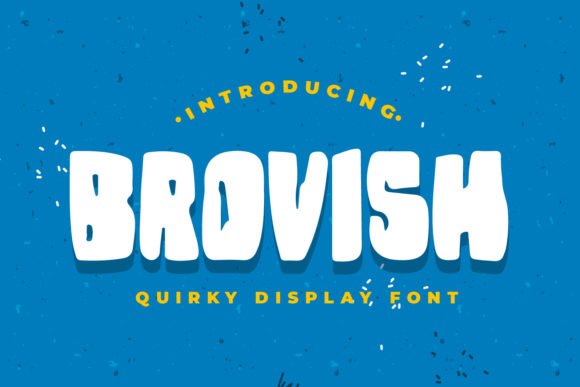
The Perfect Match for Your Next Creative Project
Do you remember the excitement of creating your first craft project as a child? The feeling of bringing an idea to life with colorful markers, glitter, and imagination? For many of us, that spark never fades, and we continue to seek out ways to express our creativity as adults. Whether you’re a seasoned designer or a DIY enthusiast, the right tools can make all the difference in bringing your vision to life.
Enter the Brovish Font, a delightful display font that’s perfect for adding a playful touch to any project. With its thick, cute letters, Brovish Font embodies the spirit of childhood creativity and authenticity. Whether you’re designing a children’s activity, a school project, or simply a fun graphic, Brovish Font is the perfect choice. Its value lies not only in its aesthetic appeal but also in its versatility, making it a valuable addition to any designer’s toolkit.
Key Features of Brovish Font
- Font Family: Brovish is a sans-serif font family designed for digital use, with multiple weights and styles available.
- Character Set: Supports a wide range of languages, including Latin, Cyrillic, and Greek alphabets, making it suitable for global applications.
- Unique Characteristics: Brovish features a distinctive rounded edge design, making it suitable for modern and minimalist designs.
Designer Review: Brovish Font
I recently had the chance to work with the Brovish Font, and I must say it was an interesting experience. ✨ One of the things that stood out to me was the font’s unique aesthetic. It has a quirky, playful feel that would be perfect for designs that need a bit of whimsy.
Here are some of the things that I think work well with Brovish Font:
- ✨ Unique character set: The font has a wide range of glyphs and characters that add to its playful feel.
- ✨ Versatility: Brovish Font can be used in a variety of design contexts, from logos to body text.
- ✨ High-quality rendering: The font renders well at both small and large sizes.
- ⚠️ Limited language support: Brovish Font may not be suitable for designs that require support for languages with complex scripts.
- ⚠️ May not be suitable for formal designs: While Brovish Font can be used in a variety of contexts, it may not be the best choice for formal or professional designs.
Overall, I think the Brovish Font is a fun and creative option for designers who want to add a bit of personality to their work. While it may have some limitations, I think it’s a great choice for the right project.
Tips for Getting the Most Out of Brovish Font
For the best results, use Brovish Font in conjunction with bold or italic styles to create visual interest.
Experiment with different font sizes and colors to create a unique and eye-catching design.
Brovish Font is ideal for use in:
- Typography-based designs, such as posters and flyers.
- Wedding invitations and other special occasion designs.
Alternatives to Brovish Font
Brovish Font is a sans-serif font known for its clean lines, geometric shapes, and modern feel. Here are some alternatives for designers to consider.
Montserrat Font is a sans-serif font designed by Julieta Ulanovsky. It’s a geometric font with a strong urban feel, making it perfect for modern designs, cityscapes, and urban-themed projects. Montserrat Font is more geometric than Brovish Font, with a stronger emphasis on angles and sharp lines.
2. Inter Font
Inter Font is a modern sans-serif font designed by Rasmus Andersson. It’s a highly legible font with a clean and minimalist design, making it suitable for a wide range of projects, from corporate identities to digital products. Inter Font is more neutral than Brovish Font, with a focus on simplicity and readability.
Lato Font is a sans-serif font designed by Łukasz Dziedzic. It’s a highly legible font with a friendly and approachable feel, making it perfect for projects that require a warm and inviting tone. Lato Font is more rounded than Brovish Font, with a focus on comfort and readability.